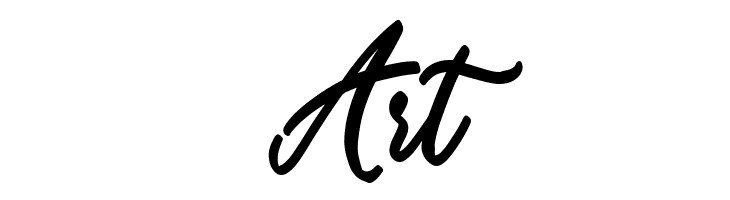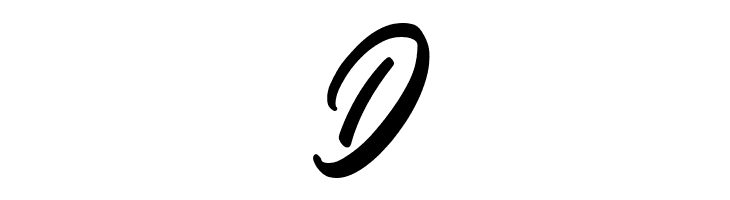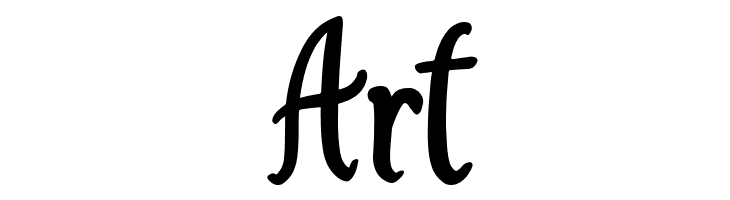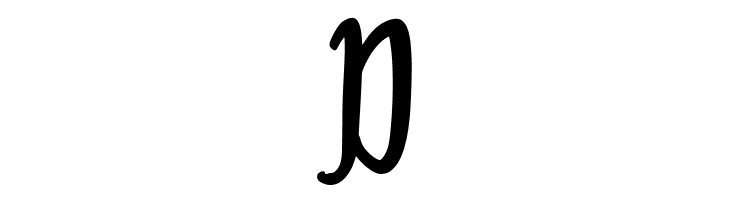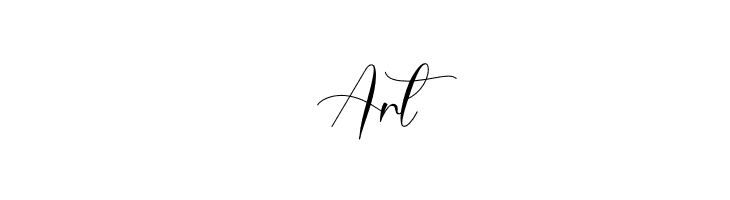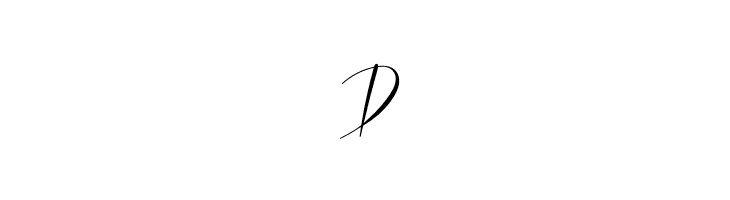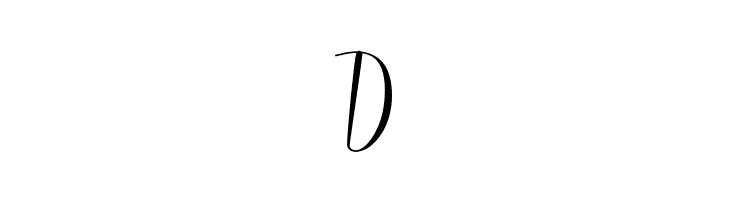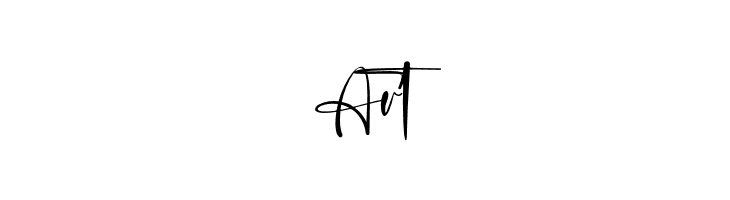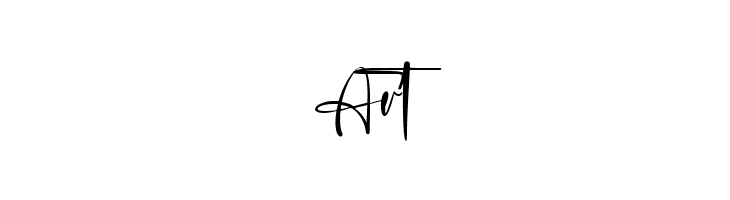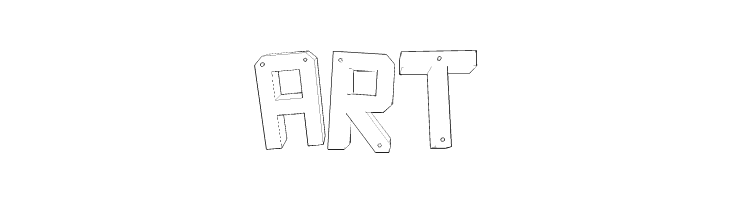
• abrakadabra
A dynamic and expressive handwritten font with fluid, cursive strokes.
• Abrashe
A bold, expressive brush-style font with a dynamic, hand-painted look.
• Abrashe
A bold, brush-style font with dynamic, textured strokes.
• Abrasion
• Abraxeous
A bold, geometric font with strong, angular shapes and a modern aesthetic.
• AbraxeousBlack
A bold, geometric font with a modern and assertive style.
• AbraxeousBold
A bold, geometric font with angular, striking characters.
• AbraxeousBoldHollow
A bold, hollow, geometric font with a modern aesthetic.
• AbraxeousExtraThin
A bold, geometric font with a modern and assertive style.
• AbraxeousExtraThinItalic
A bold, italic font with a modern and dynamic style.
• AbraxeousItalic
A bold, italic font with a modern, dynamic style.
• AbraxeousNarrow
A bold, geometric font with a narrow width and modern appeal.
• AbraxeousThin
A bold, geometric font with sharp angles and clean lines.
• ABREUL Regular
A playful, casual handwritten font with smooth, rounded edges.
• Abreviater
A bold, brushstroke font with a textured, artistic style.